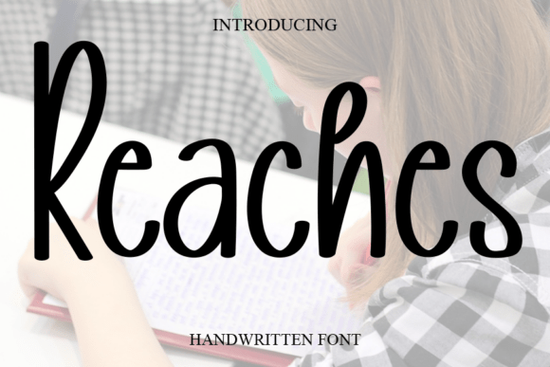
If you've been searching for a Reaches Font that blends elegance with a casual, handwritten feel, this script typeface from Creative Fabrica is worth a closer look. It's a sweet, cursive font with flowing letterforms that work beautifully across wedding invitations, branding materials, greeting cards, and print-on-demand designs. Whether you're a designer, crafter, or small business owner, Reaches Font brings a romantic, joyful tone to any project without feeling overly formal.
What Does Reaches Font Look Like?
Reaches is a handwritten script font with smooth, connected strokes and a natural flow. The characters have a gentle slant and rounded edges, giving them a warm, approachable personality. It doesn't try too hard to be fancy instead, it feels like someone actually sat down and wrote it by hand with care.
The font includes:
- Uppercase and lowercase letters with organic connections
- Numbers and punctuation for complete design flexibility
- Alternate characters and ligatures that add variety to your layouts
- A smooth baseline that keeps text looking clean and readable
It strikes a nice balance between decorative and legible, which is exactly what you need for projects where style matters but readability can't be sacrificed.
Where Can You Use a Font Like This?
One of the best things about Reaches is its versatility. It fits naturally into a wide range of design projects. Here are some practical ways people use it:
- Wedding stationery invitations, save-the-dates, menus, and place cards
- Logo design for boutiques, salons, bakeries, and lifestyle brands
- Greeting cards birthdays, anniversaries, Valentine's Day, and thank-you notes
- Social media graphics for quotes, promotions, and product announcements
- Print-on-demand products like mugs, tote bags, and t-shirts
- Fashion lookbooks and marketing materials with a feminine or romantic vibe
If you're working on branding for a small business, this kind of script font adds personality without looking cluttered. It pairs especially well with clean sans-serif fonts for body text.
Who Is This Font Best Suited For?
Reaches works well for anyone who designs with a romantic, elegant, or feminine aesthetic in mind. If your projects lean toward wedding themes, lifestyle branding, or handmade-style graphics, this font fits right in. It's also a solid choice for crafters who use cutting machines and need a font that traces cleanly in design software.
That said, if your style is more minimal or modern, you might find this font a little too decorative for everyday use. It shines brightest when the design calls for warmth and personality.